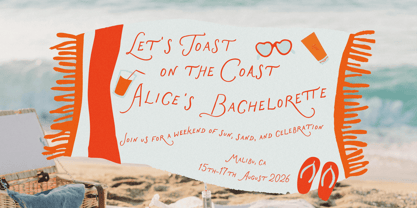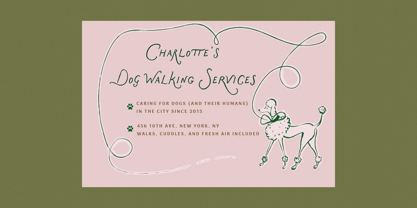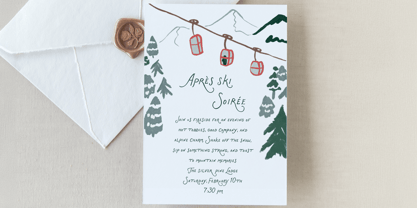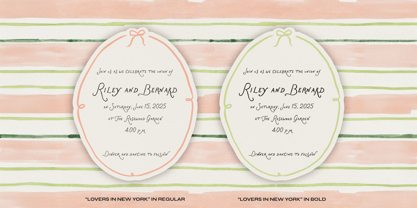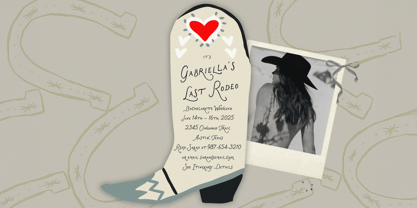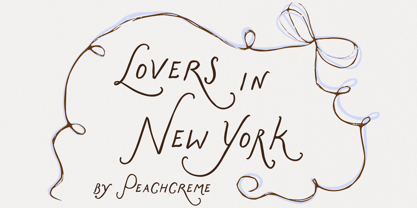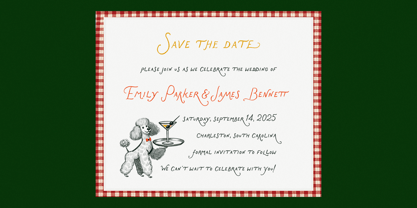
Lovers in New York
by PeachCreme
The Lovers in New York Font Family was designed by Gulya Yeap and published by PeachCreme. Lovers in New York contains 2 styles and family package options. More about this family
Lovers in New York is a font typeface with a lively, hand-drawn quality. Its fluid strokes and organic details create a sense of movement, striking a balance between elegance and informality. Subtle irregularities add charm without feeling excessive.
The lowercase letters maintain an all-caps structure for readability, providing a steady rhythm in body text, while a single uppercase letter introduces a decorative flourish, adding movement and personality. This interplay creates a refined yet expressive feel, making the typeface adaptable for invitations, branding, and editorial design.
Designers: Gulya Yeap
Foundry: PeachCreme